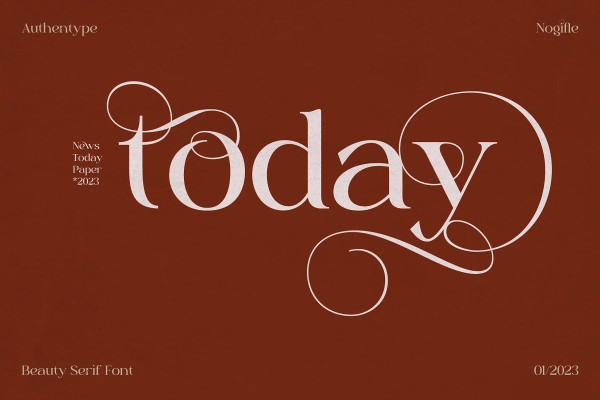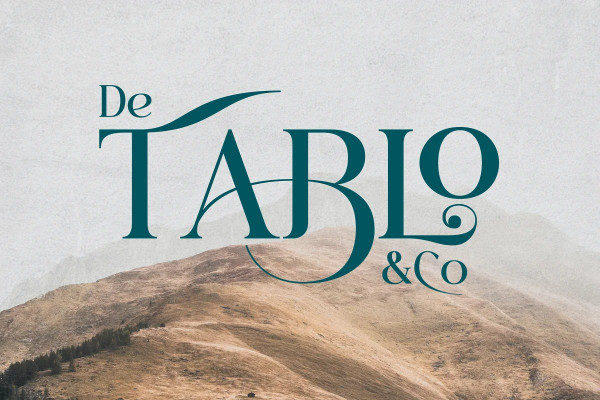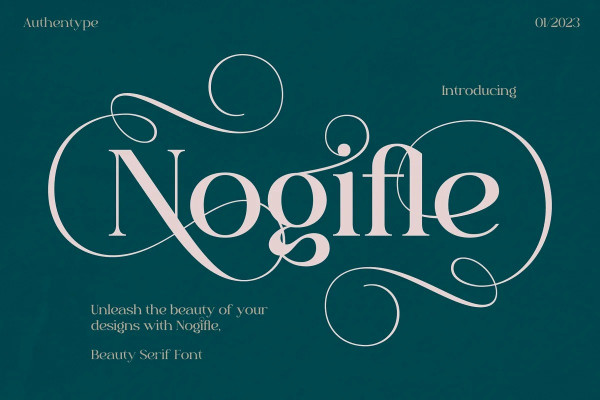
Nogifle Font
Nogifle Font, a stunning serif font featuring an abundance of ligatures and rich alternatives. The Nogifle serifs possess the fluidity of a script font, providing an elegant and unique look to your text.
Say goodbye to boring typography with Nogifle’s striking alternating indents. Upgrade your designs today with Nogifle.